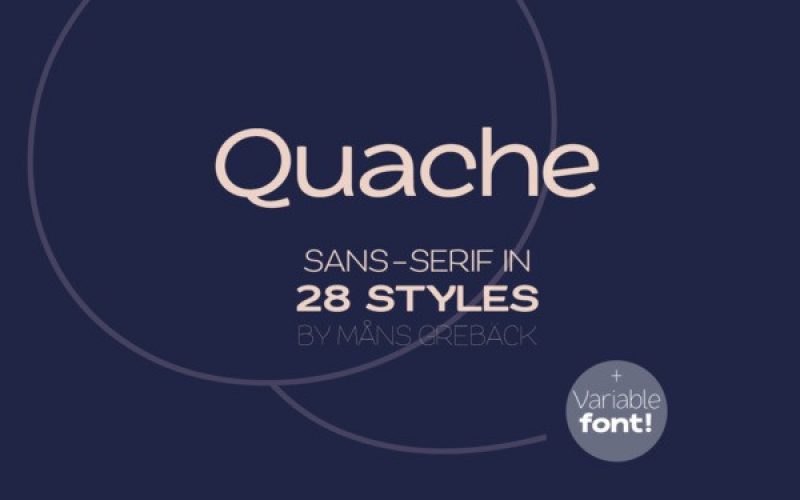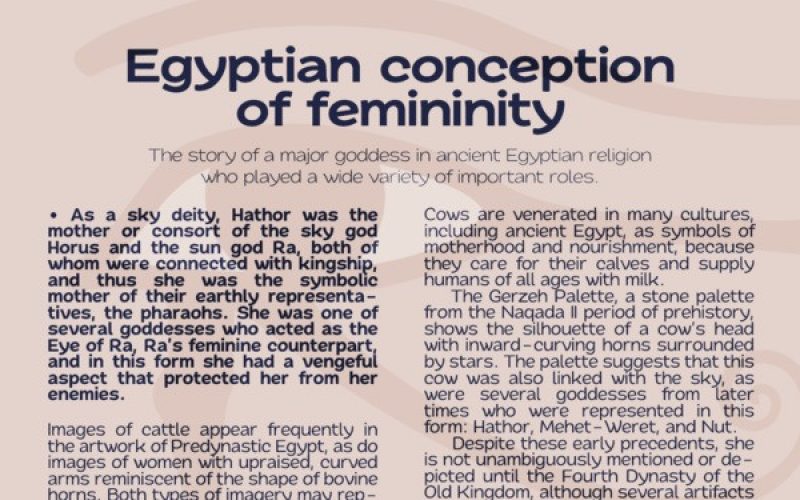
Quache Sans Serif Font
Quache is a flexible sans-serif, created by Måns Grebäck between 2018 and 2020. It has unique, stylish curvatures and is clear, legible and sharp with open letter forms.
The font family consists of six weights and four widths, totaling in 28 main styles: Thin, Light, Regular, Bold, Black, Heavy and Condensed, Normal, Expanded, ExtraExpanded